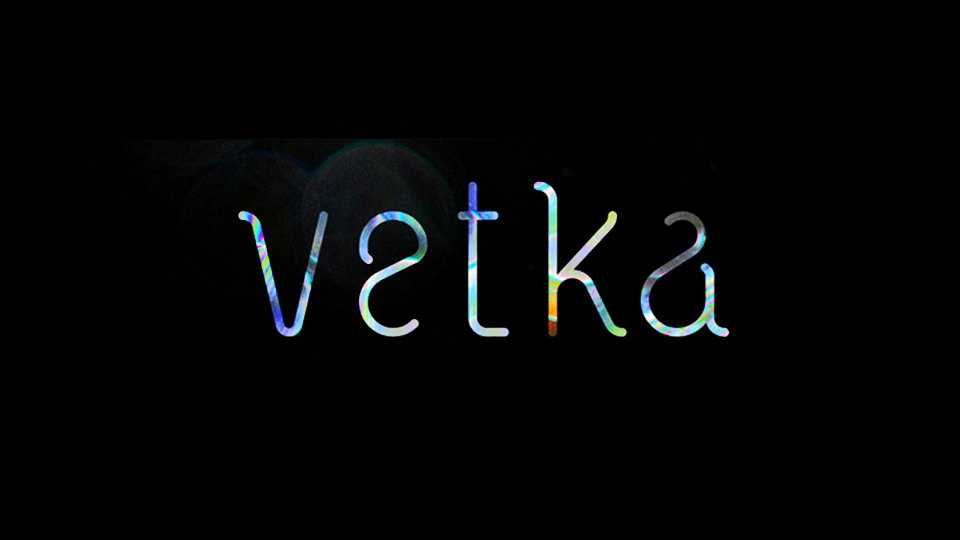
Download Vetka font, an original typeface with unique forms and rounded smooth curves. Perfect for branding identity, merchandise, social media and other creative typographic projects.
Designer: Ruslan Khasanov